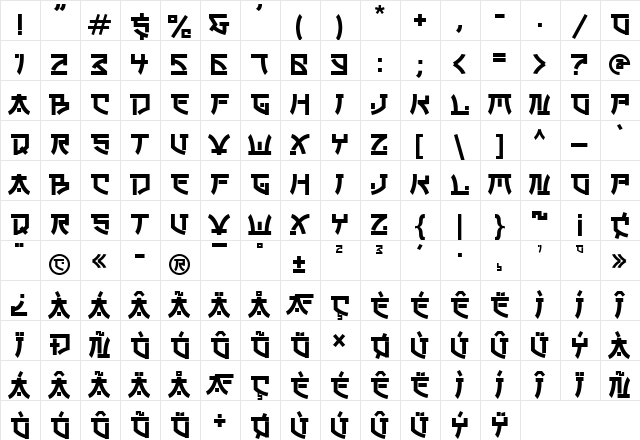
SAKURATA Regular
| Designer | Sealoung Studio+Saiful Anwar |
Design Context for SAKURATA Typeface
SAKURATA is a composed and adaptable typeface that performs quietly and consistently across a wide range of design contexts.